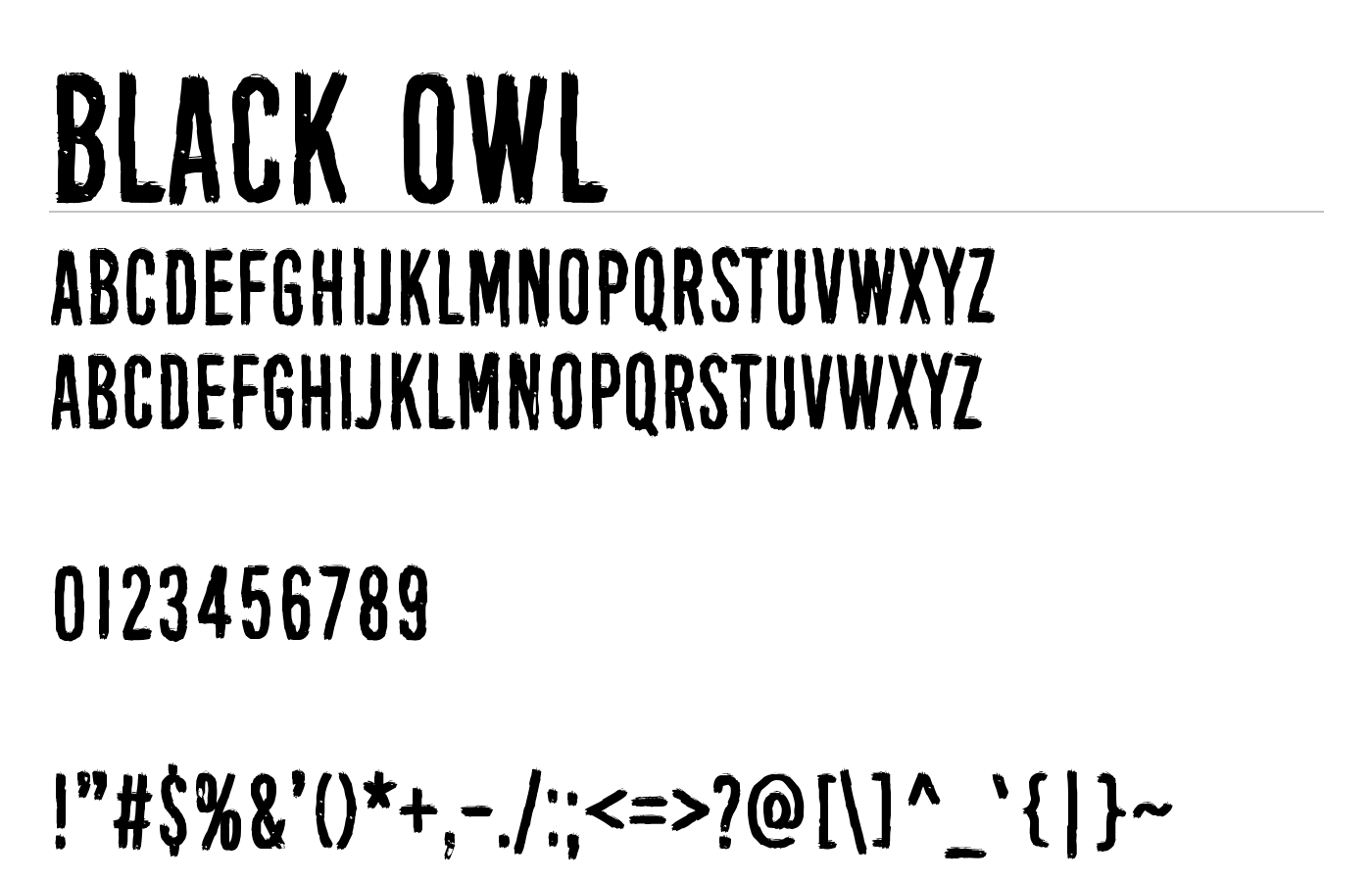
Black Owl is a bold, condensed sans serif font with a rough, distressed texture that gives it a gritty, hand-crafted feel. Its tall, narrow letterforms have a strong presence, making it ideal for impactful headlines, branding, and designs that aim for a rugged, vintage, or urban aesthetic. This font works well in creative projects where a bold, expressive style is needed to grab attention and convey character.
Black Owl Font
About Black Owl Font
| Font family | Black Owl Font |